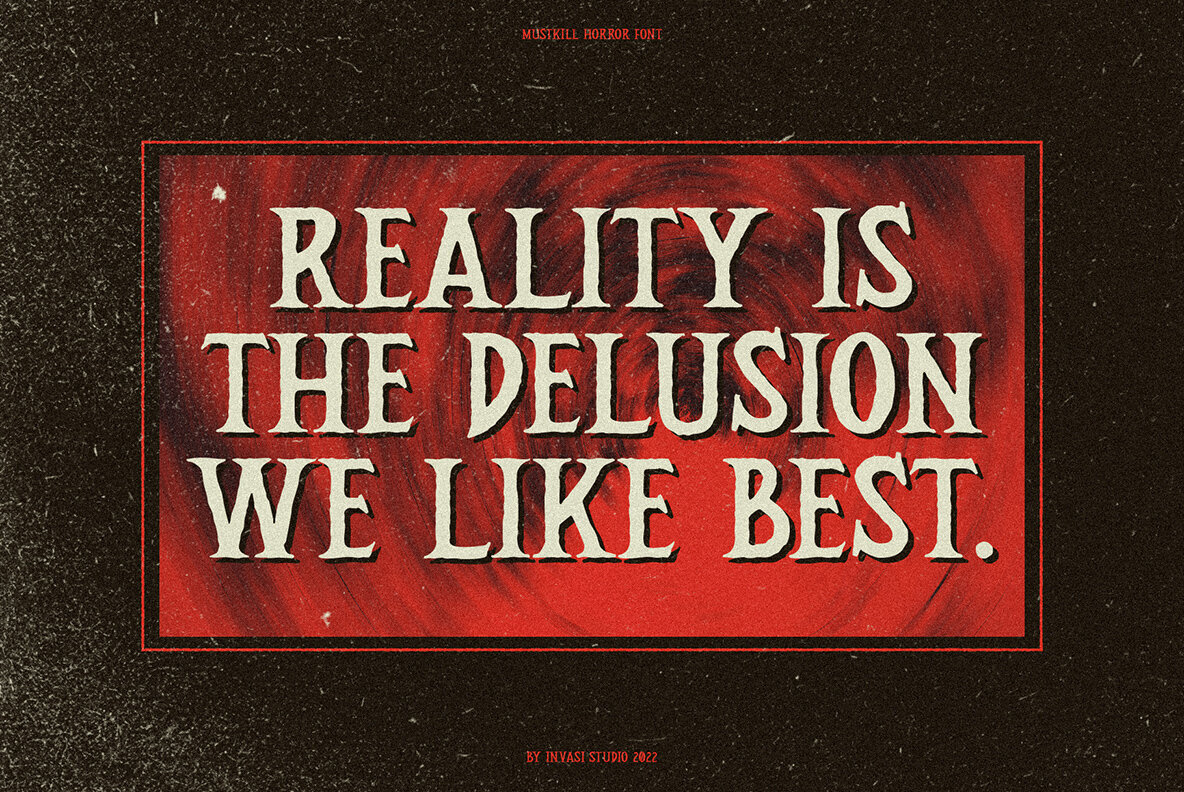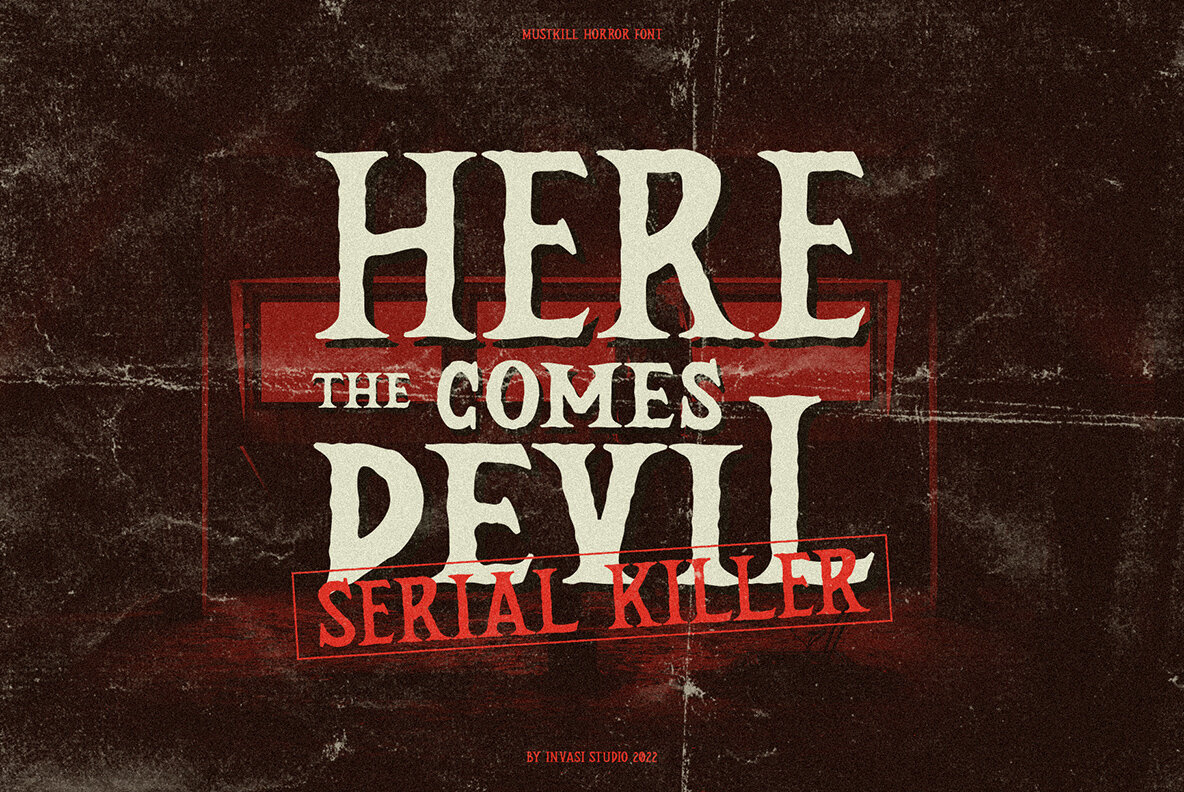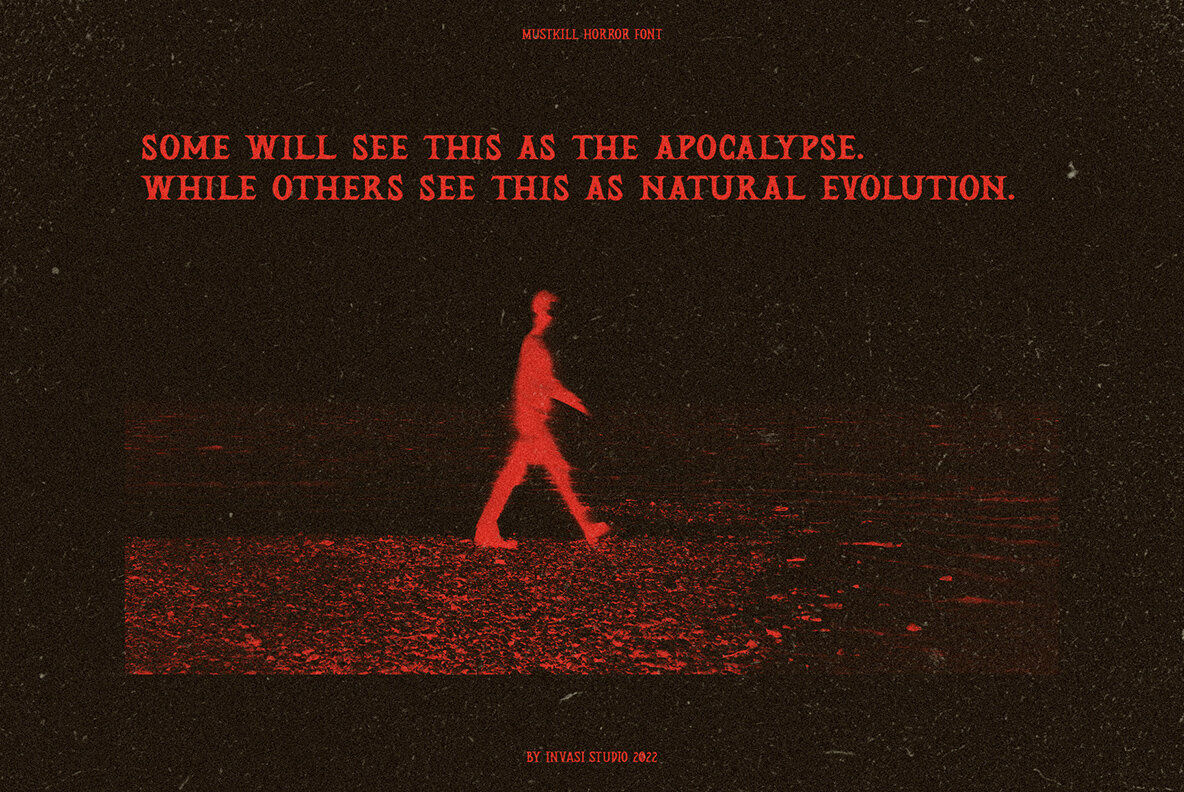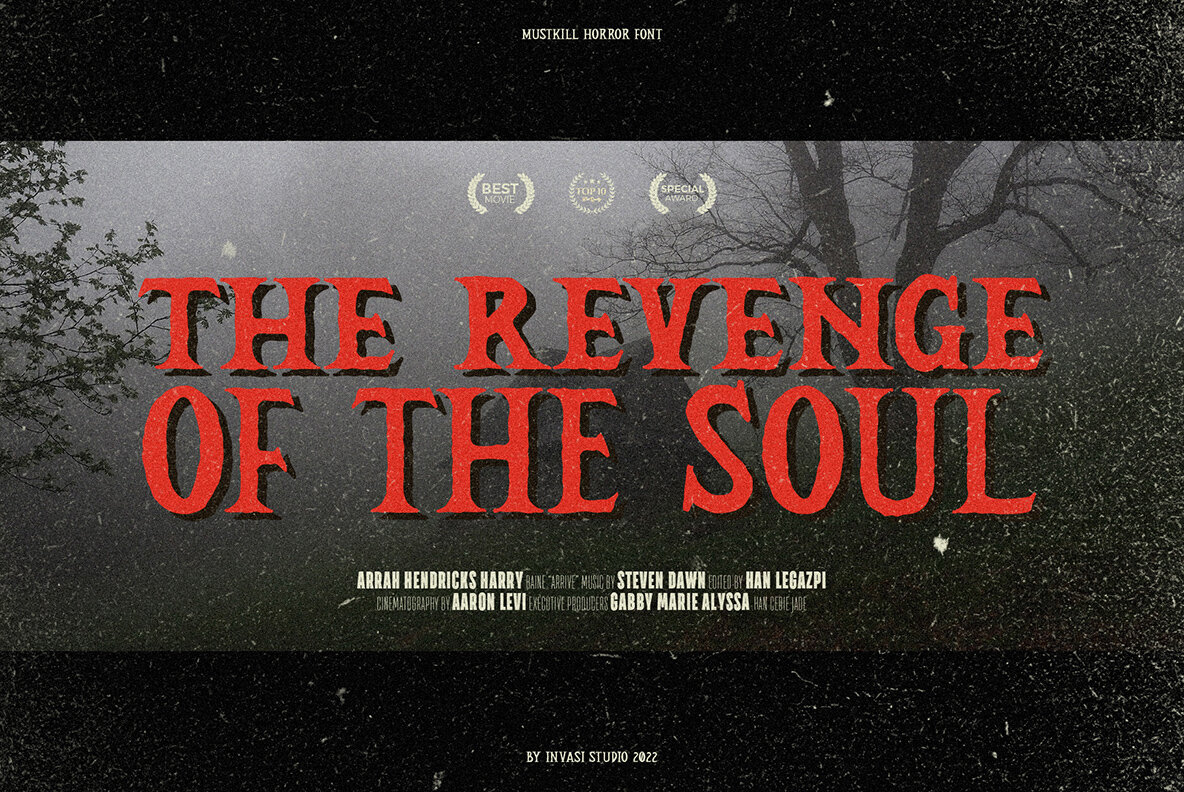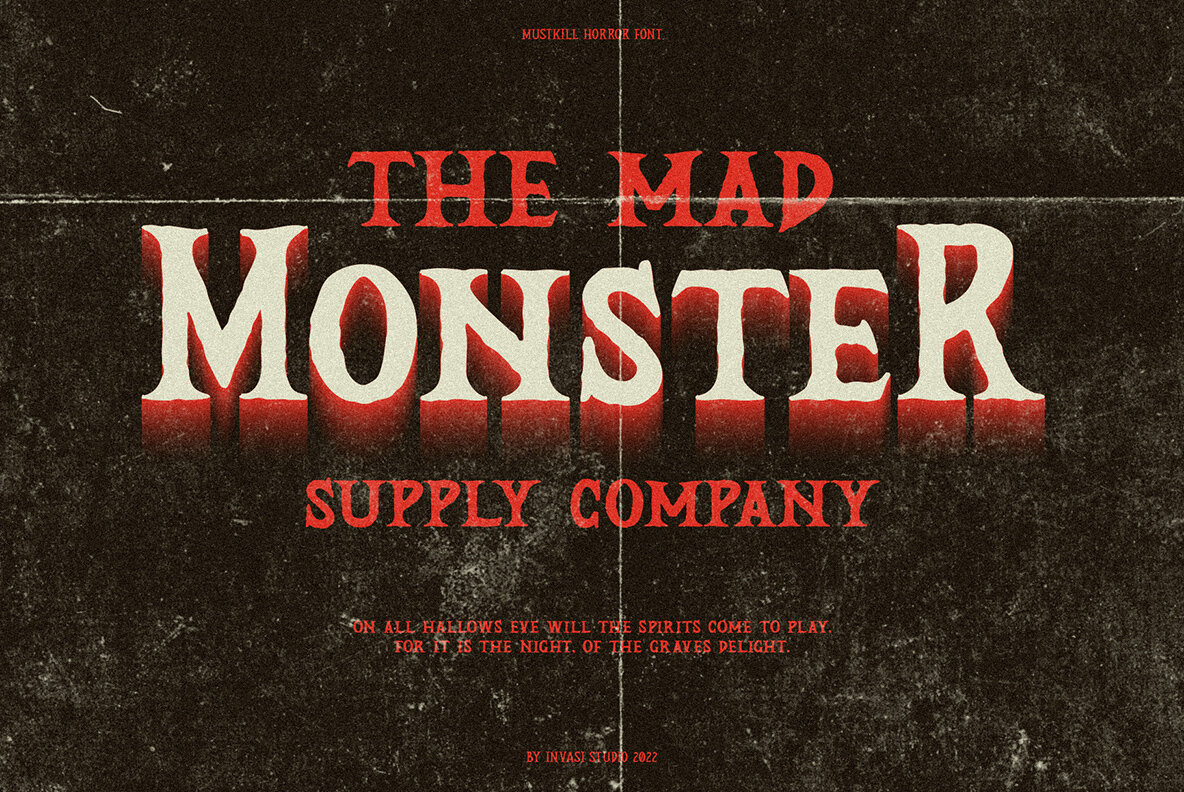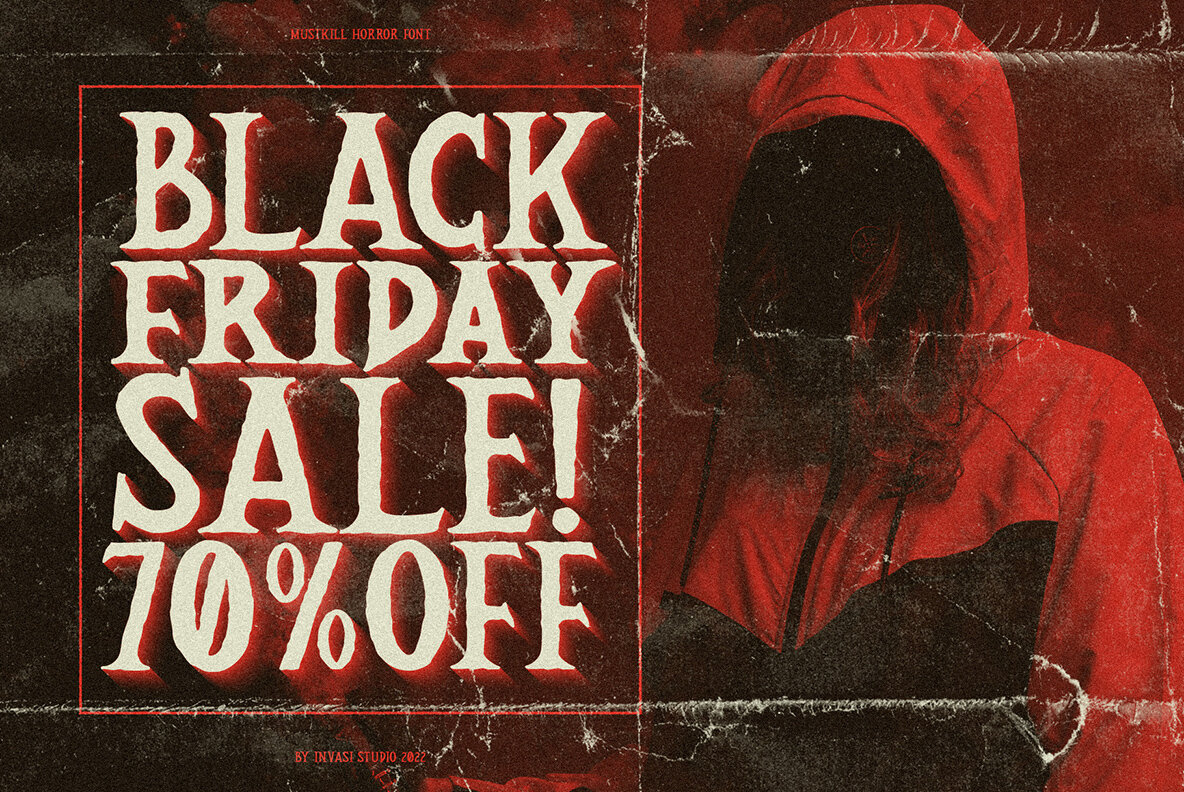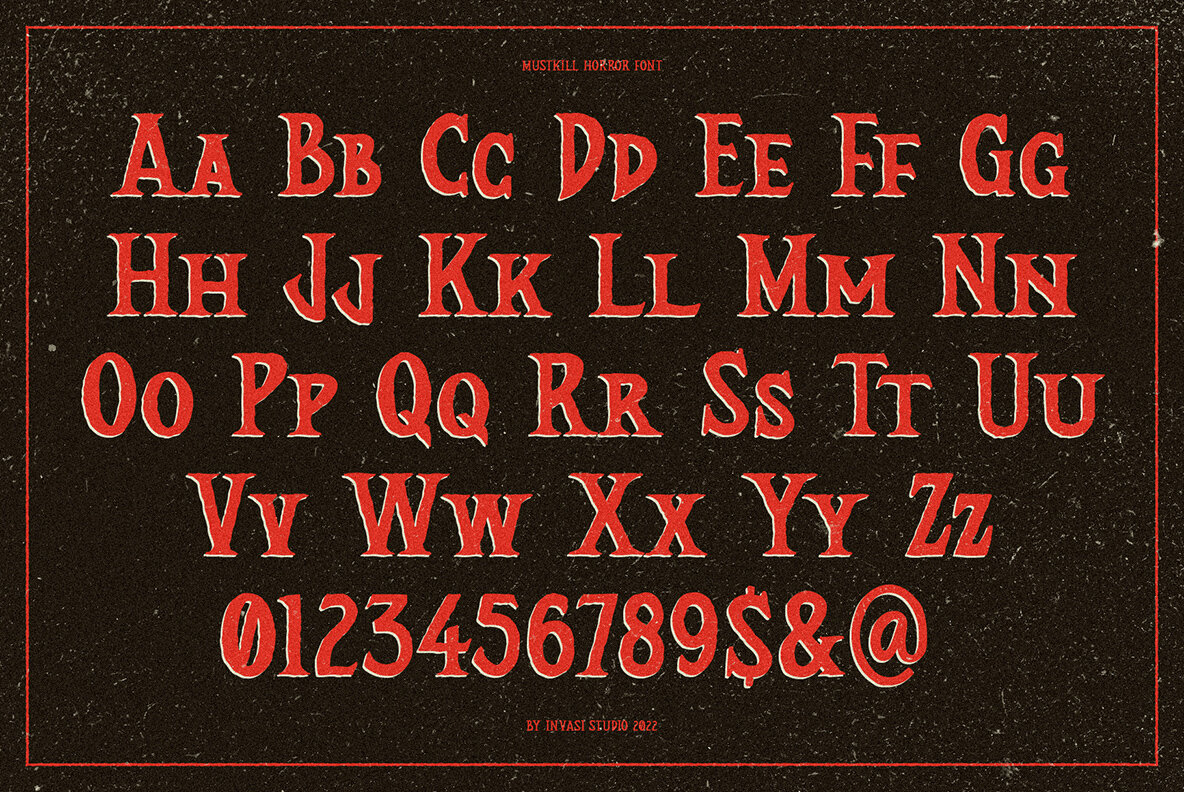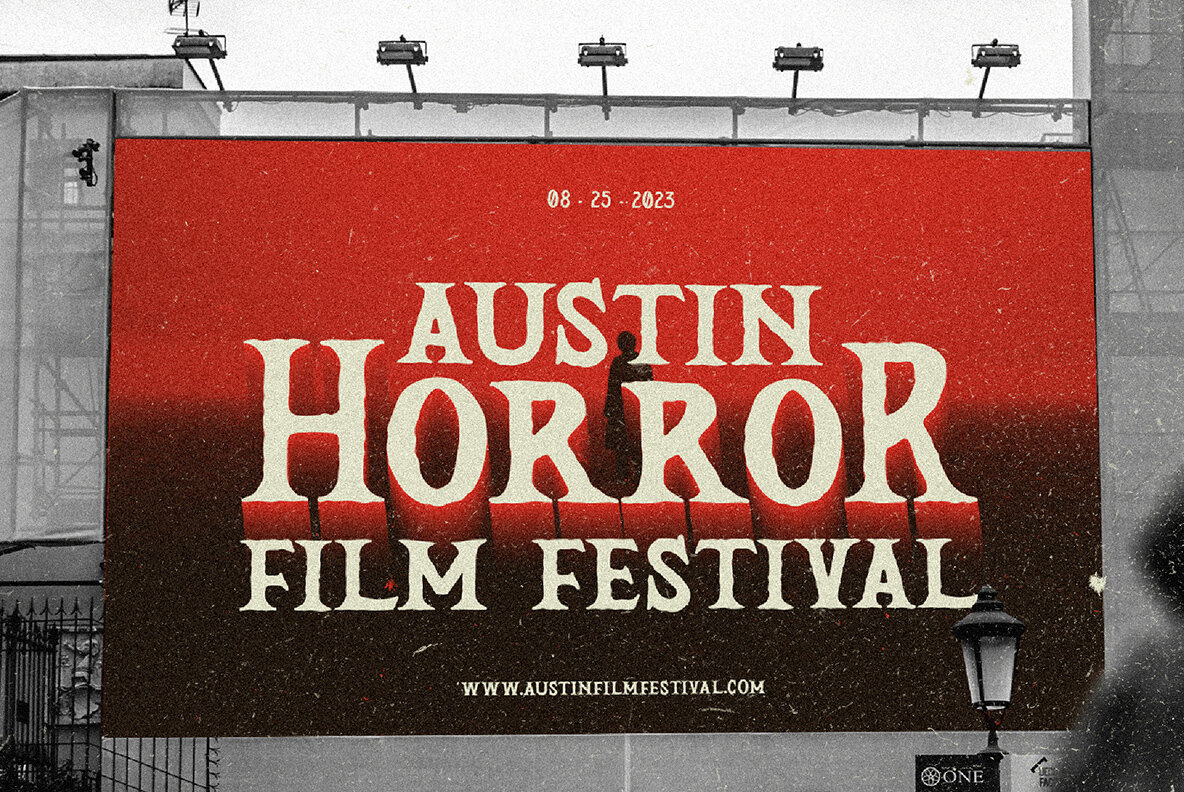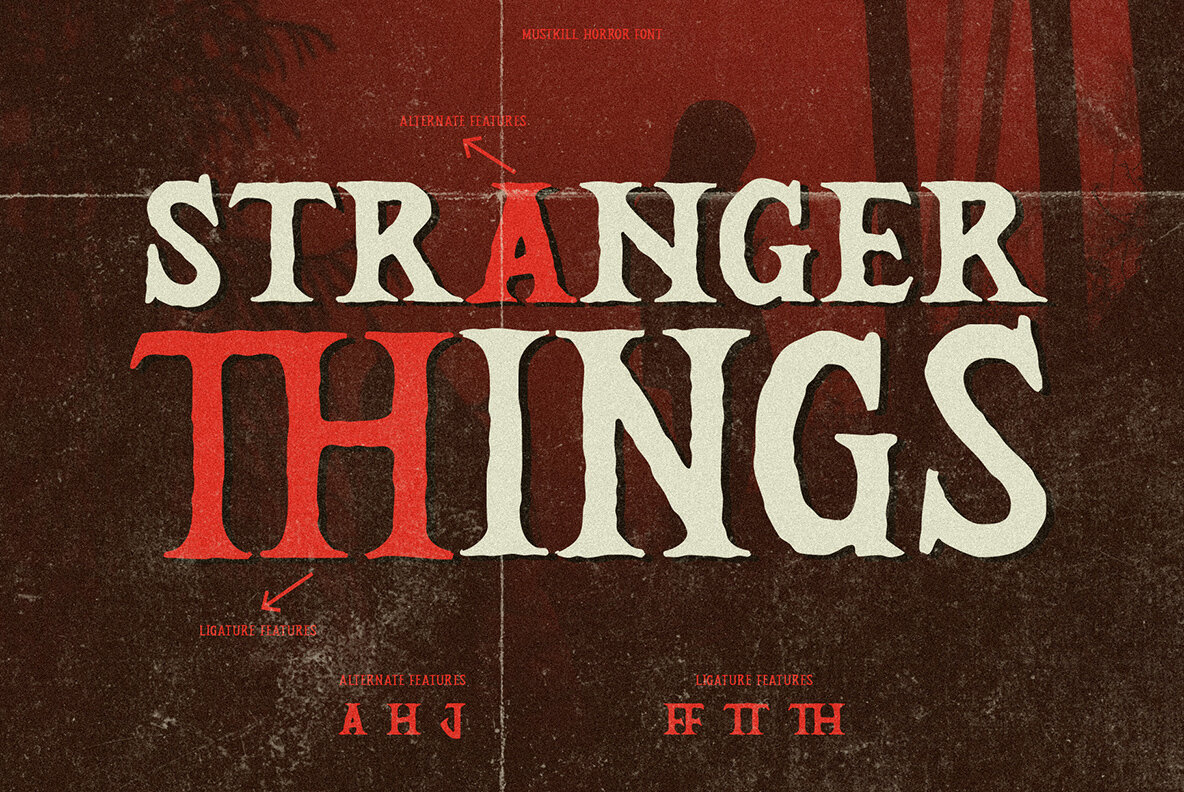
Mustkill Font
Mustkill
Drawing inspiration from the suspenseful world of horror movie posters, Mustkill offers a gripping addition to any design that seeks to evoke intense emotion. This font is meticulously crafted to convey a sense of anger and nightmare, making it a prime choice for projects that require an edgy and dramatic flair.Mustkill: A Spine-Chilling Font with Rough Details